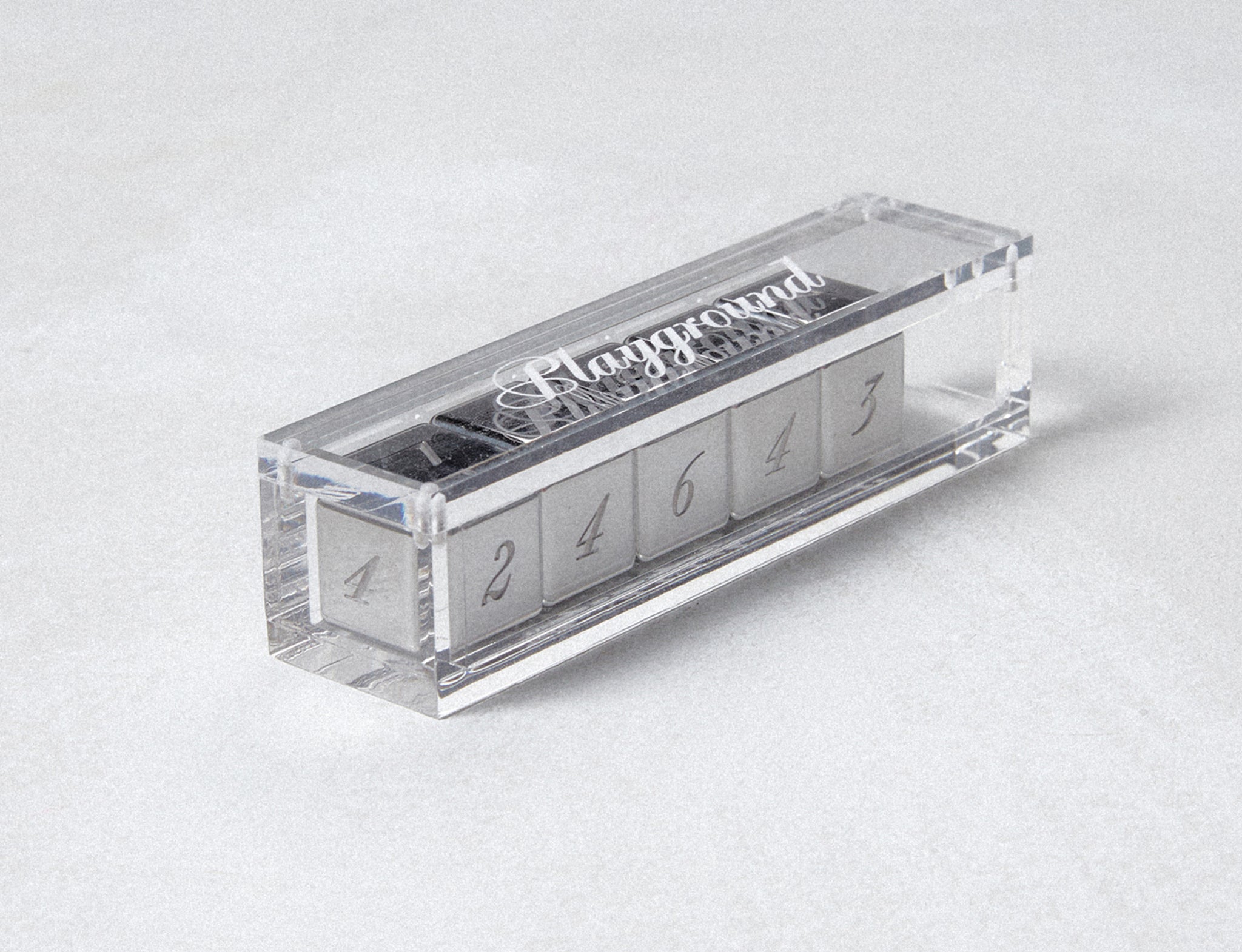
At the Pangram Playground , we try our best to think a little differently, going beyond your standard, expected, and often uninteresting merch. The release of Playground Script is no different.
Celebrating the flourish and flair of our first script font, courtesy of our very own Francesca Bologni , weâre proud to launch the Playground dice set , a collectable art piece that is not only incredibly satisfying but perfectly encapsulates the typeface itself â promising to revolutionise how we perceive and interact with design elements in our daily spaces. Transforming an everyday object into a source of endless inspiration and enjoyment.
Speaking to Pangram founder Mat Desjardins, the mind behind the dice and the Playground itself â an initiative that embodies the belief that âPlay is the Highest form of Researchâ â we dive into the thought process behind choosing dice as not just a tool for randomness but as a centrepiece of design and utility, enhancing the aesthetics of a workspace while serving as a tangible source of inspiration and stress relief.
Merch is often just seen as tees and totes; how do you come up with the weird and wonderful ideas for the Playground?
The initial idea behind The Pangram Playground was to create a studio/practice that wouldnât be bound by such notions. We donât want to just create merch but collectable art pieces.
Playground is a place to explore and create anything we feel works and follows the ethos: Play is the Highest form of Research. Celebrating mistakes and the creative process as a whole. The dice is a good representation of that I think â sometimes thereâs luck involved in the whole process as well.
So, why dice?
Why not dice! Haha! No but seriously, we just thought it would make a great office piece that you can play with as a stress relief while youâre working. Itâs unique and collectible and a very fun way to showcase PP Playground âs beautiful numerals. The etched magnetic acrylic case also adds to the whole experience and beauty of the piece. The weight and material were selected carefully to make sure they felt substantial enough. We even thought of a little game to go along with it. Make a list of 6 (Pangram Pangram!) fonts. Roll 2 dice. The first number is your main font, second your pairing. Et voilĂ ! Creative block over!
Howâre you feeling about the final product, now itâs in your hands and out IRL?
Like I mentioned, a lot of thought went into each detail, from the angle of the corners to the weight and casing. Iâm super happy with the result! They are definitely one more step in the direction I want to take Playground . It definitely feels like a premium experience/product that is meant to last a lifetime.
What were the material considerations going into production? Why did you opt for the textures you went for?
At first we had a different kind of finish, size and engraving on the dice. Are the numbers engraved and painted black or just left as is? Are the edges shaper or rounder? Are the dice polished or brushed? We had to explore all these avenues before coming up with the right combination. Lived with each of them for a bit to get a feel.
I feel the end result is the best representation of what we had in mind for this. The right combination of weight, feel and polish. (you might want to use white gloves though haha!)
Since all sets come with the complete PP Playground Typeface font files, is it fair to call it a type specimen as well? What features of Playgroundâs numerals do you find most interesting?
The angle, the elegance, the refinement and the alternates.
These numerals are so well made and detailed that I feel each of them are compelling enough to be showcased on their own. Which is another reason why we did the dice.
If Pangram was a board game, which would it be?
Hmmmmm, good question! Part of me wants to say Monopoli without the money/capitalism aspect of it â and the jail haha! More the aspect of collecting typefaces (properties), pairing them to get better results and growing/evolving as you play. A bit like a designerâs journey.
What else can we expect from the Playground this year?
I usually try not to reveal too much in advance but I can spill a bit of tea here if you made it this far down in your reading! We have a lot in the works actually. We already teased the candles but there will be a very nice collectible addition to that drop. And then thereâs the Euro coming this summer so we might do something football-related. We also have a classic stationery kit coming with a lot of goodies and nice ideas. And if we have time, we might release a âprint shopâ inspired perfume. There will be a few âmerch thingsâ throughout. Weâll see!